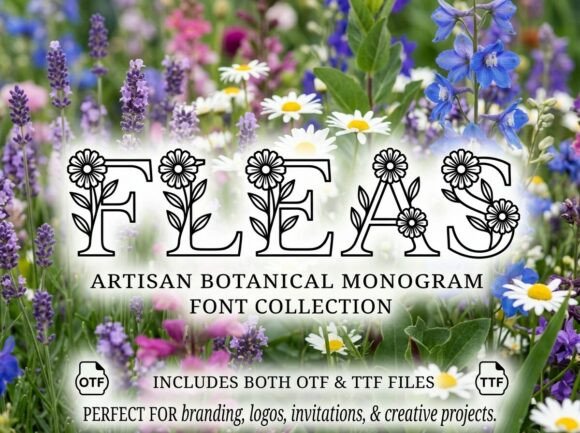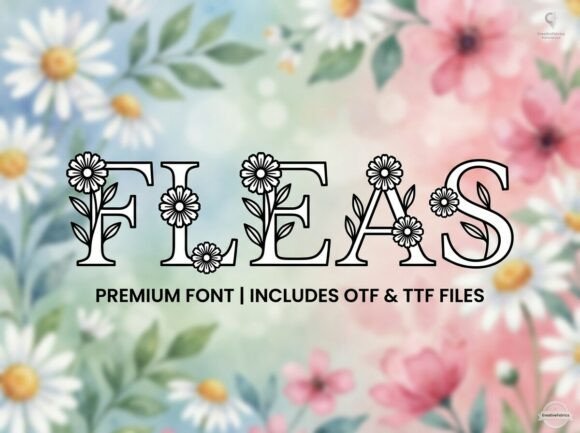
Introduction to Fleas Font
As a designer, there’s nothing quite like the thrill of discovering a new font that sparks creativity and inspires your next project. It’s that moment when you stumble upon a typography gem that sets your imagination ablaze. For me, that moment came when I discovered the enchanting Fleas Font. Its delicate, hand-drawn daisies and leaf stems seem to dance across the page, inviting you to create a garden of beauty and wonder.
The Fleas Font is more than just a pretty face – it’s a high-quality design resource that bridges the gap between traditional botanical illustrations and modern branding. With its unique, high-contrast letterforms and transparent background, this font is the perfect choice for designers seeking to add a touch of elegance and whimsy to their creative projects.
Fleas Font
- Unique, hand-drawn style with intricate details and textures, ideal for adding a touch of whimsy to designs
- Includes 6 styles: Regular, Italic, Bold, Bold Italic, Outline, and Fill, providing versatility for various design applications
Honest Review: Fleas Font
I recently stumbled upon the Fleas Font, and I must say it’s a great addition to my design resource library. This high-quality font is perfect for any creative project that requires a fun, playful touch.
What works well with the Fleas Font is its versatility. The font comes in various styles, making it easy to adapt to different design needs. I particularly like the transparent background feature, which allows for seamless integration with other design elements.
⚠️ One limitation I’ve noticed is that the font may not be suitable for professional or formal designs. It’s more geared towards playful or casual projects.
Overall, I’m impressed with the Fleas Font. It’s a great design resource that’s perfect for designers who want to add a fun touch to their projects. With its high-quality design and free download option, it’s definitely worth checking out. ✨
The Fleas Font is a versatile design resource ideal for creative projects requiring a high-quality, elegant touch. This font features a transparent background, making it easy to integrate into various design applications.
Tips for Getting the Most Out of Fleas Font
For optimal results, use the Fleas Font in conjunction with other high-quality design elements. Experiment with different font sizes and styles to achieve a visually appealing design.
The Fleas Font is ideal for a variety of design projects, including logos, branding materials, and digital graphics. Its elegant design makes it a popular choice for creative professionals and enthusiasts alike.
Alternatives to Fleas Font
Playfair Display is a high-quality serif font ideal for creative projects that require elegance and sophistication. It features a transparent background and is available for free download. When to use: wedding invitations, luxury brand logos, or high-end product packaging. Compared to Fleas Font, Playfair Display is more formal and traditional, making it suitable for projects that require a touch of sophistication.
Can I modify the Fleas Font to suit my design needs?